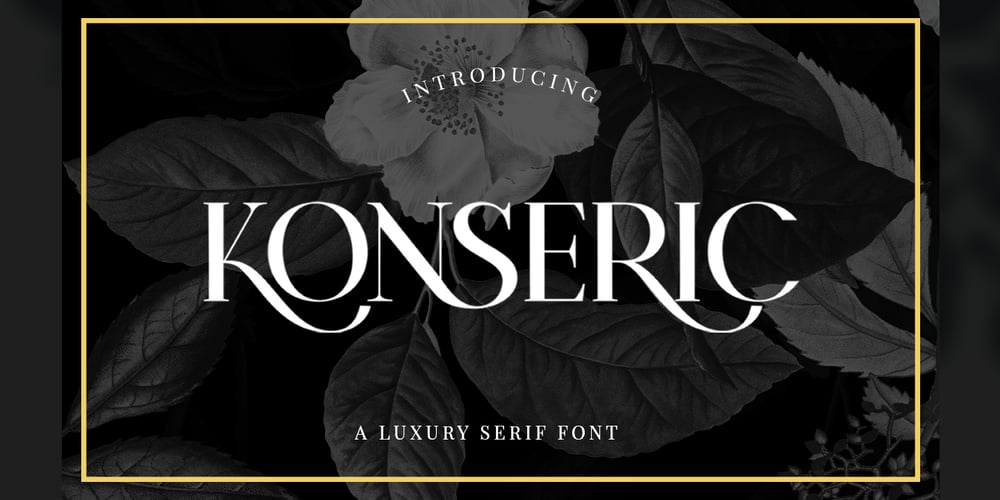
Konseric Font Family was designed by Akmal Yusar and published by Picatype. Konseric contains 1 styles and family package options. Konseric is an elegant serif display font of a classic style that has been modernized with unique curves and cut-ins making it one of the most memorable top fonts on the market. It represents vintage aesthetics in a modern and minimalist way. Fonts include special uppercase letters, alternative characters and beautiful ties and multilingual support. This versatile font can be used for wordmark logos, mastheads, pull quotes & monograms that show feminine and masculine qualities, elegant packaging or invitation cards and almost all creative designs. To enable the OpenType Stylistic alternates, you need a program that supports OpenType features such as Adobe Illustrator CS, Adobe Indesign & CorelDraw X6-X7, Microsoft Word 2010 or later versions. We hope you enjoy the font, please feel free to comment if you have any thoughts or feedback. Or simply send me a PM or email me at picatypestudio@gmail.com. Thanks for purchasing and have fun!